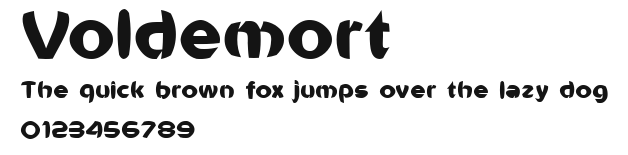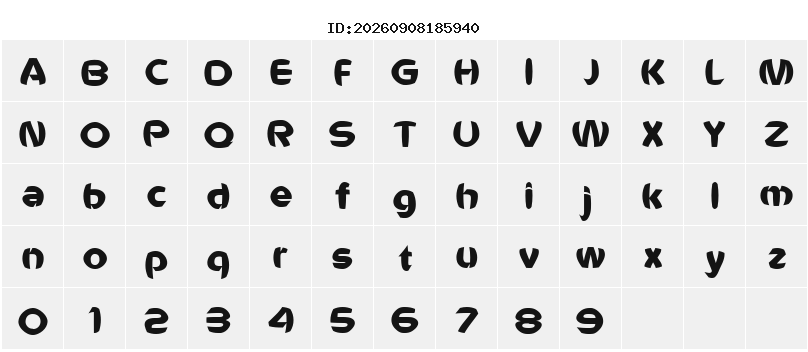
• Font Name: Voldemort
• Full Font Name: Voldemort
About Voldemort.ttf
Voldemort.ttf is a modern, elegant sans-serif font designed for ultimate readability and visual harmony. Perfect for branding, headlines, web design, and print materials.